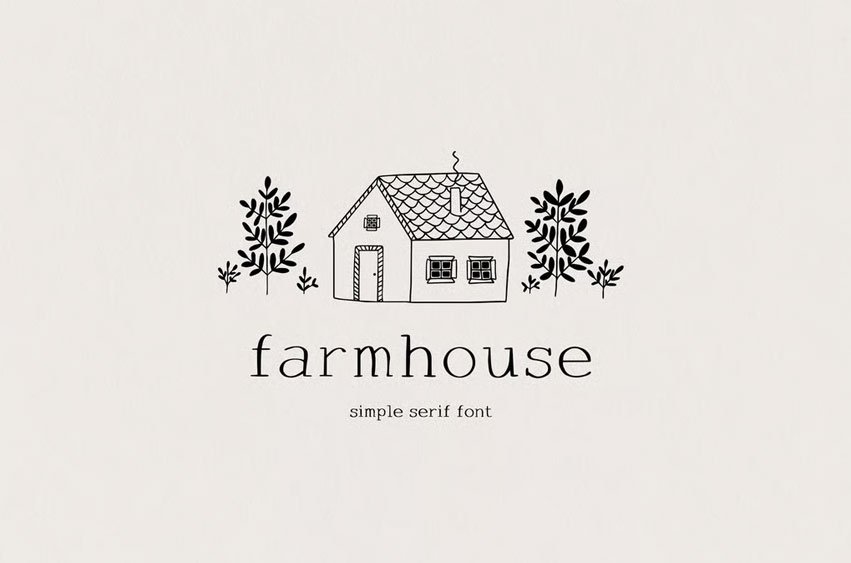
Farmhouse Simple Font is a sweet collection of display serif fonts with cute illustrations. Perfect for logos, cards, branding, and other designs. I hope you enjoy it!